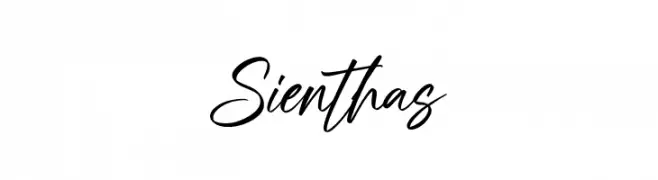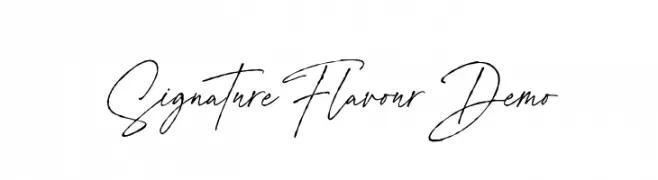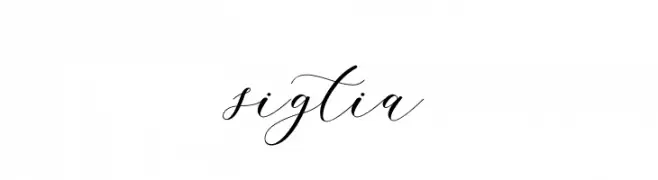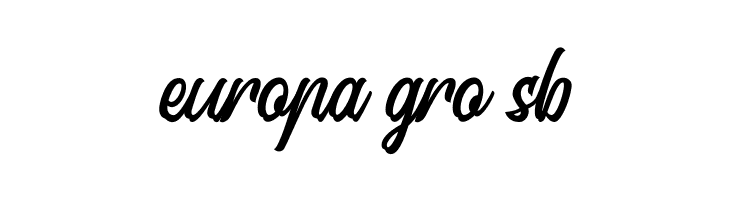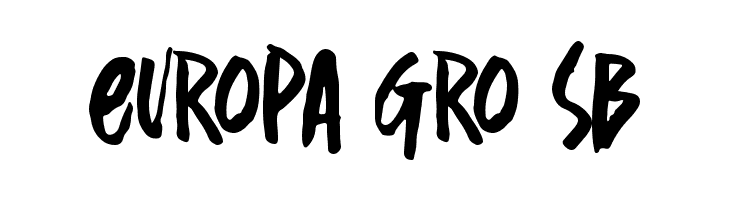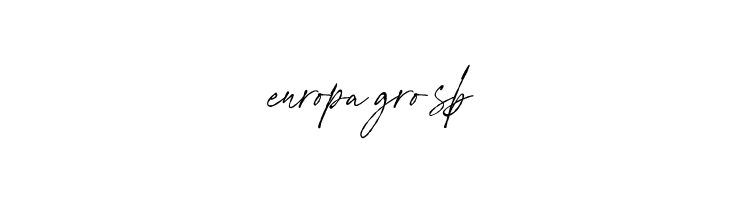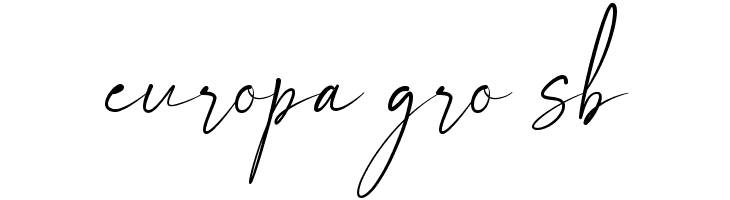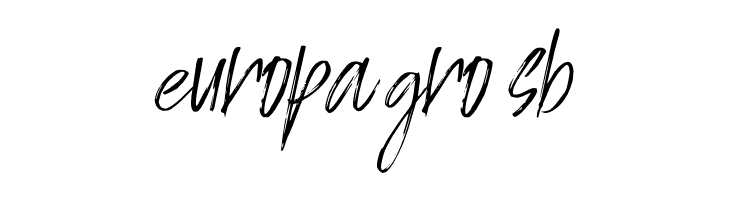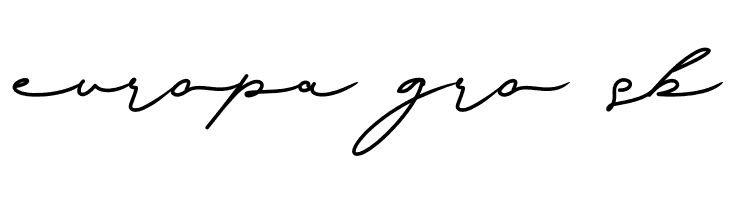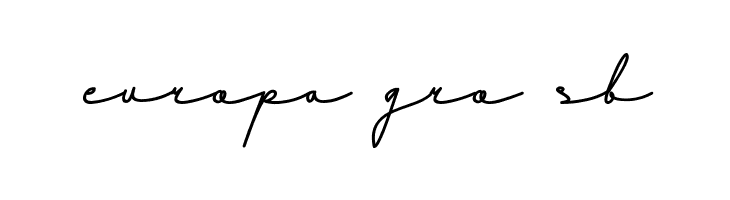
A graceful script font with fluid, cursive strokes and elegant curves.
A playful and elegant handwritten script with fluid, connected letters.
A stylish and elegant script font with fluid, connected letterforms.
An elegant, flowing script font with a handwritten signature style.
A sophisticated, elegant handwritten font with fluid, cursive letterforms.
An elegant, cursive font with a hand-drawn, sophisticated style.
An elegant and flowing script font with intricate, decorative letterforms.
A graceful and sophisticated script font with flowing, interconnected letters.
A dynamic, expressive handwritten font with fluid strokes.
A bold, hand-painted style font with dynamic, irregular strokes.